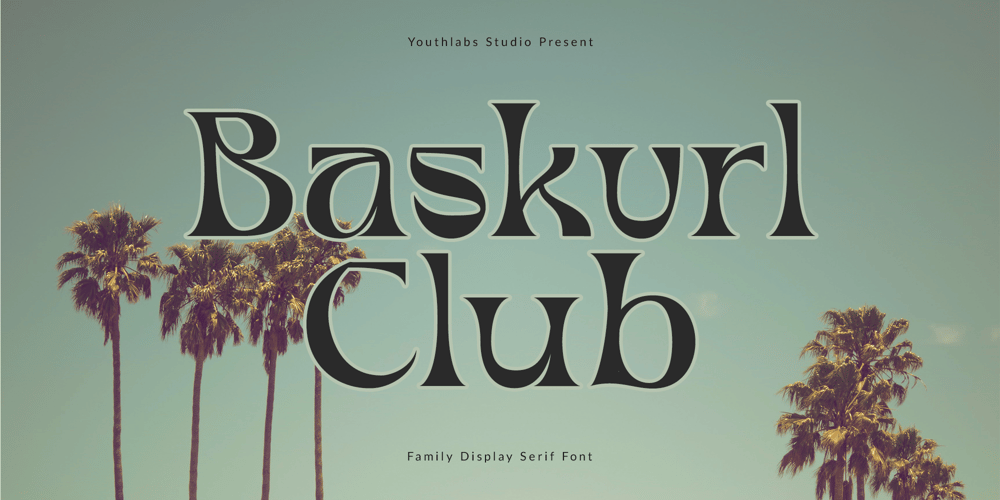
Baskvrl Club
Baskvrl Club font
Baskvrl Club Font Family was designed by Fathi Al Ghazi and published by Youthlabs. Baskvrl Club contains 3 styles and family package options. Introducing Baskvrl Club Family – A Brand Display Serif font with cursive path, Baskvrl Club font come with variation weight thin, regular, bold that can be used to make contrast to your design. Baskvrl Club font come with More Opentype Feature, and variable fontWHAT’S YOU GET ? Unique Letterforms Works on PC & Mac Simple Installations Accessible in the Adobe Illustrator, Adobe Photoshop, Microsoft Word even work on Canva! Fully accessible without additional design software. I really hope you’ll get pleasure using Baskvrl Club font and it will be perfect addition to your font collection! Contact me with an inbox message If you have any question. Thank you! Happy Creating.